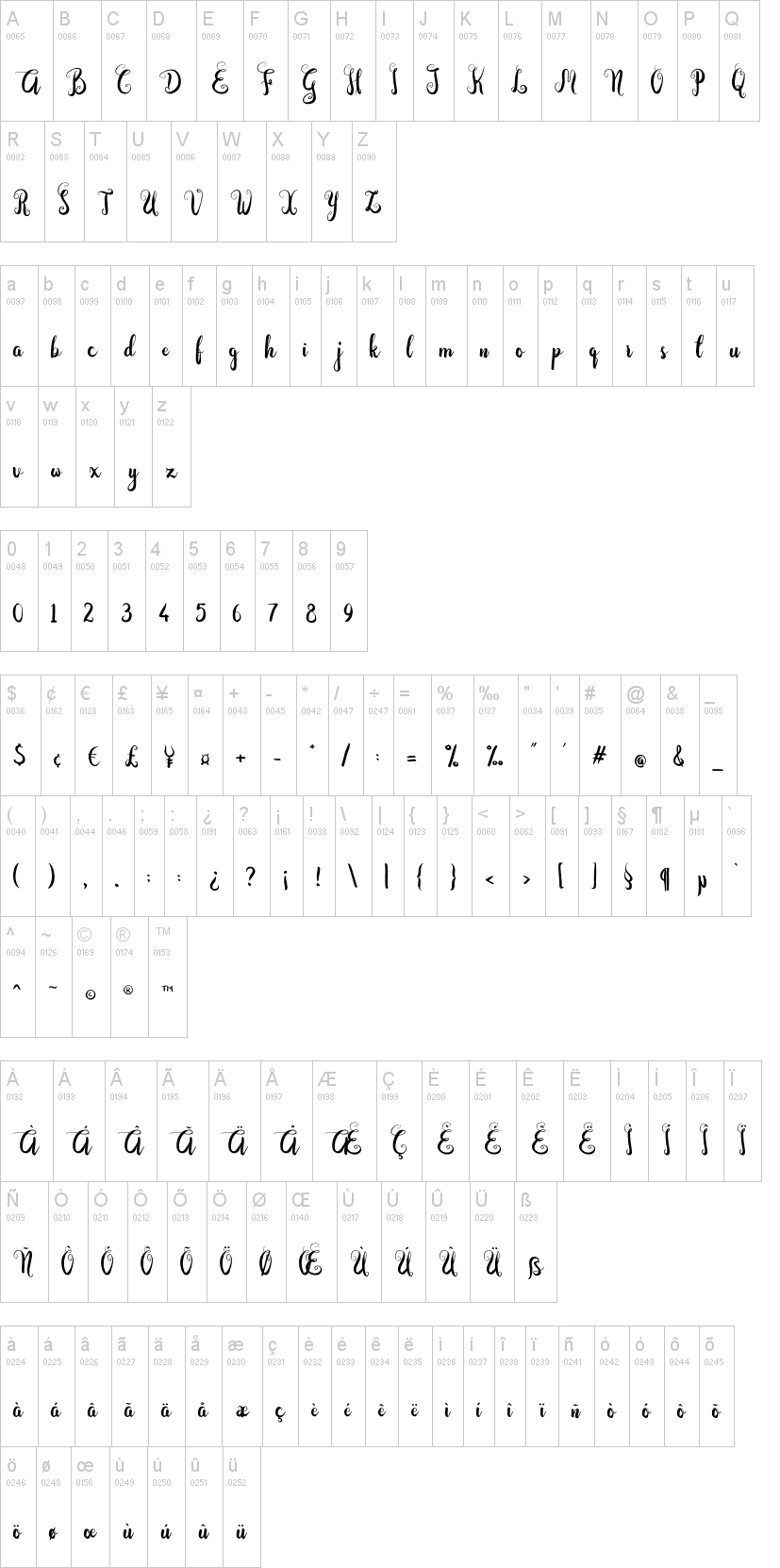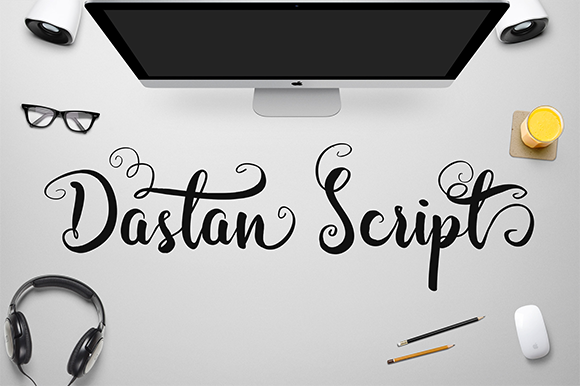
Present my new cute and beautiful handwritten script. With many of pretty alternate characters, it will nice to make your design cute and beauty as handwritten.
Features:
- Contain 520 glyphs and supported to basic Latin character and eastern Europe language.